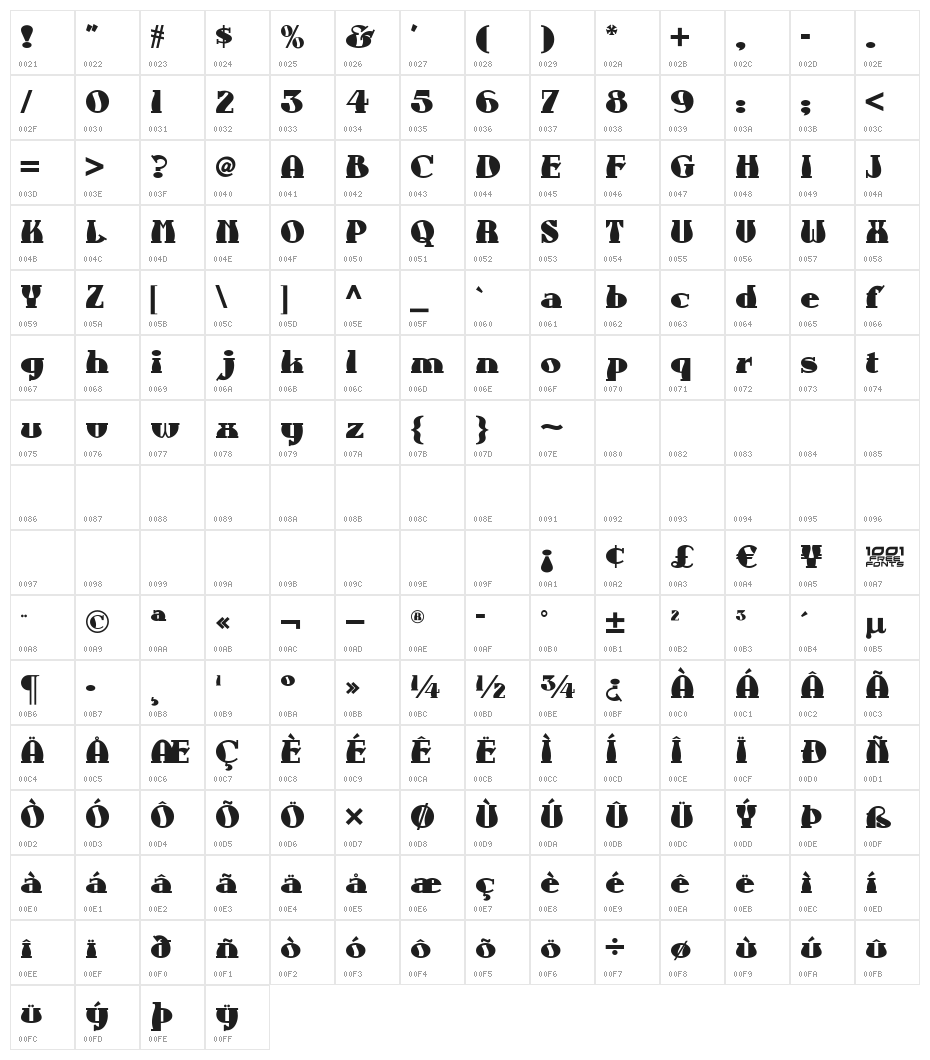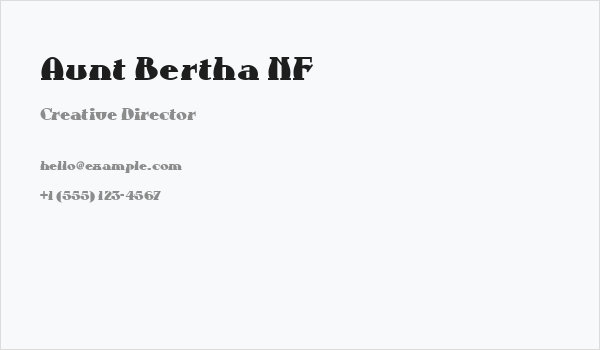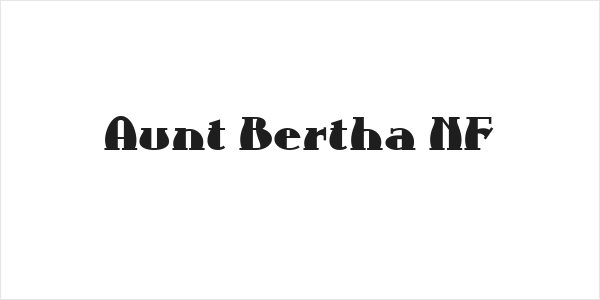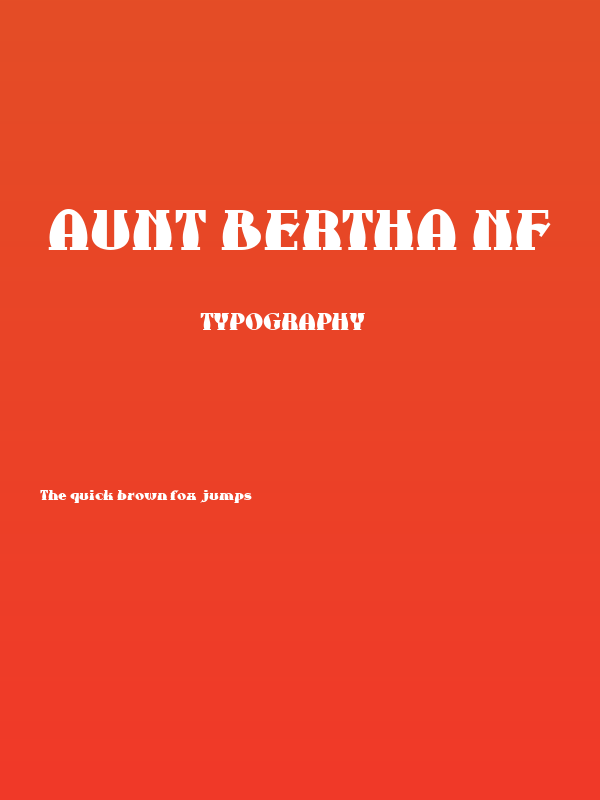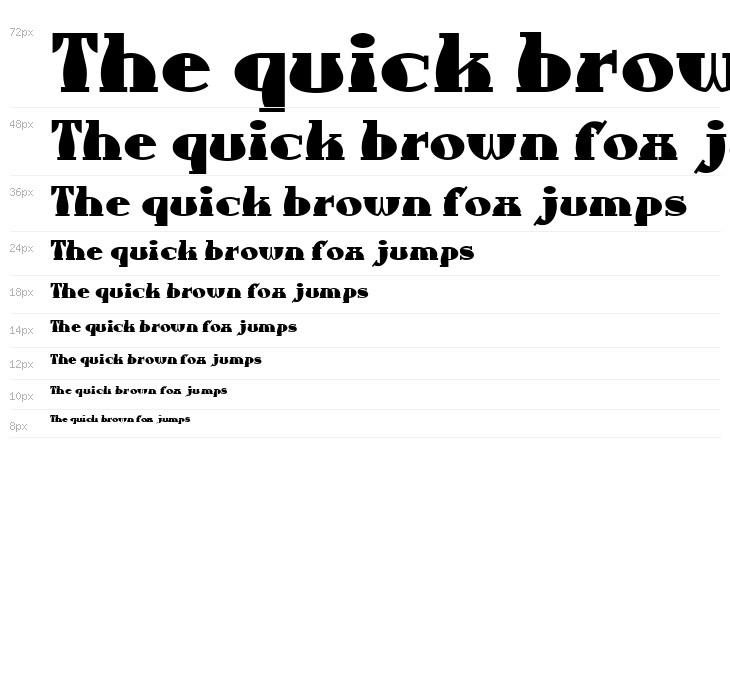
Aunt Bertha NF Font
Aunt Bertha NF Description
This font features a bold and striking design with a distinct vintage flair. The characters are crafted with thick, heavy strokes and unique cut-out elements that give them a stencil-like appearance. The uppercase letters exhibit a strong presence, while the lowercase letters maintain a consistent style, ensuring readability. The numerals are equally bold, matching the overall aesthetic of the font. Special characters are designed with the same attention to detail, making them suitable for various design needs. This font's unique style makes it ideal for projects that require a touch of nostalgia and boldness.
| Proposed Projects | Ideal for vintage posters, retro-themed branding, and eye-catching headlines. |